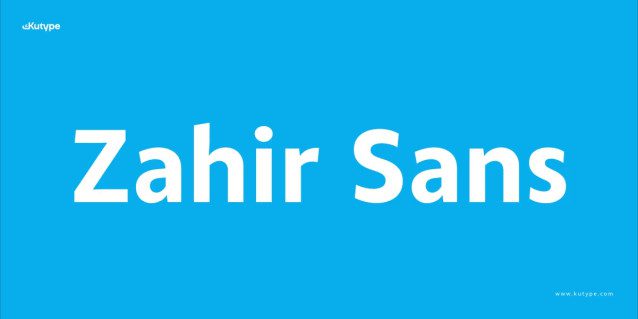
Zahir Font
Zahir Font is a Humanist sans-serif typeface that emphasizes clarity, warmth, and versatility. Zahir provides a comprehensive system for expressive and flexible type, with 18 styles ranging from Thin to Black and including both upright and italic forms.